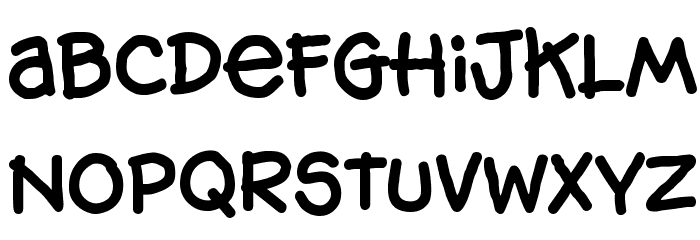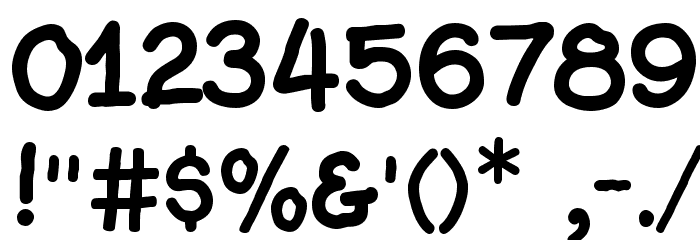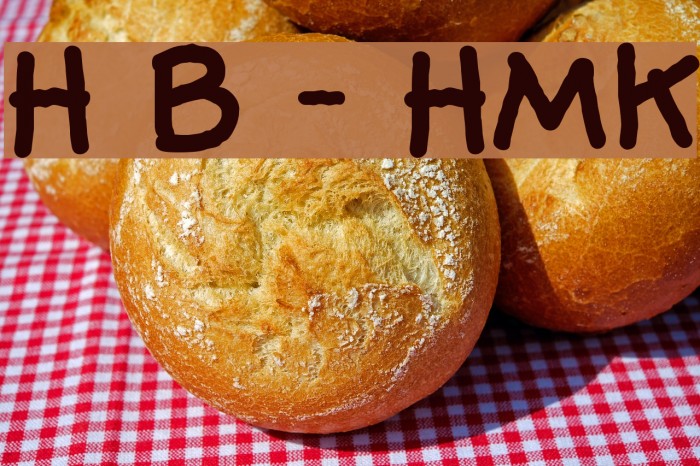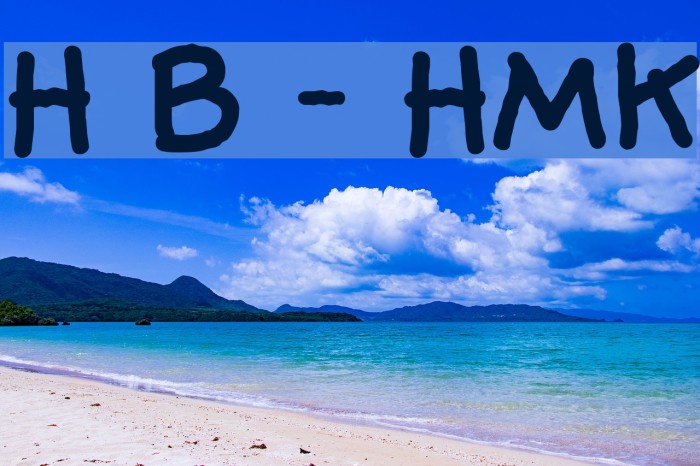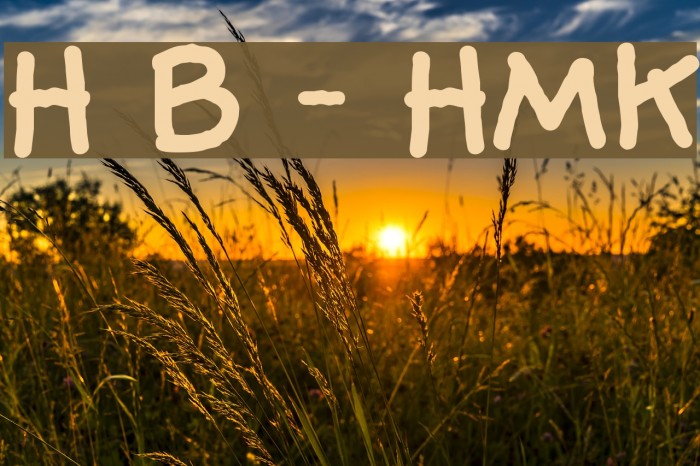
Hog Bold - HMK Font
This font features a playful and bold handwritten style, characterized by its rounded and slightly irregular letterforms. The strokes are thick and consistent, giving it a strong presence. The uppercase and lowercase letters maintain a uniform height, contributing to its cohesive appearance. The numerals and special characters follow the same playful aesthetic, making it suitable for informal and creative designs. The overall look is casual yet impactful, ideal for projects that require a friendly and approachable tone.
A bold, playful handwritten font with rounded, consistent strokes.
- Proposed Projects: Ideal for children's books, playful branding, greeting cards, and casual posters.
- Overall Style: Playful
- Use Case: Headlines, Logos, Informal Text